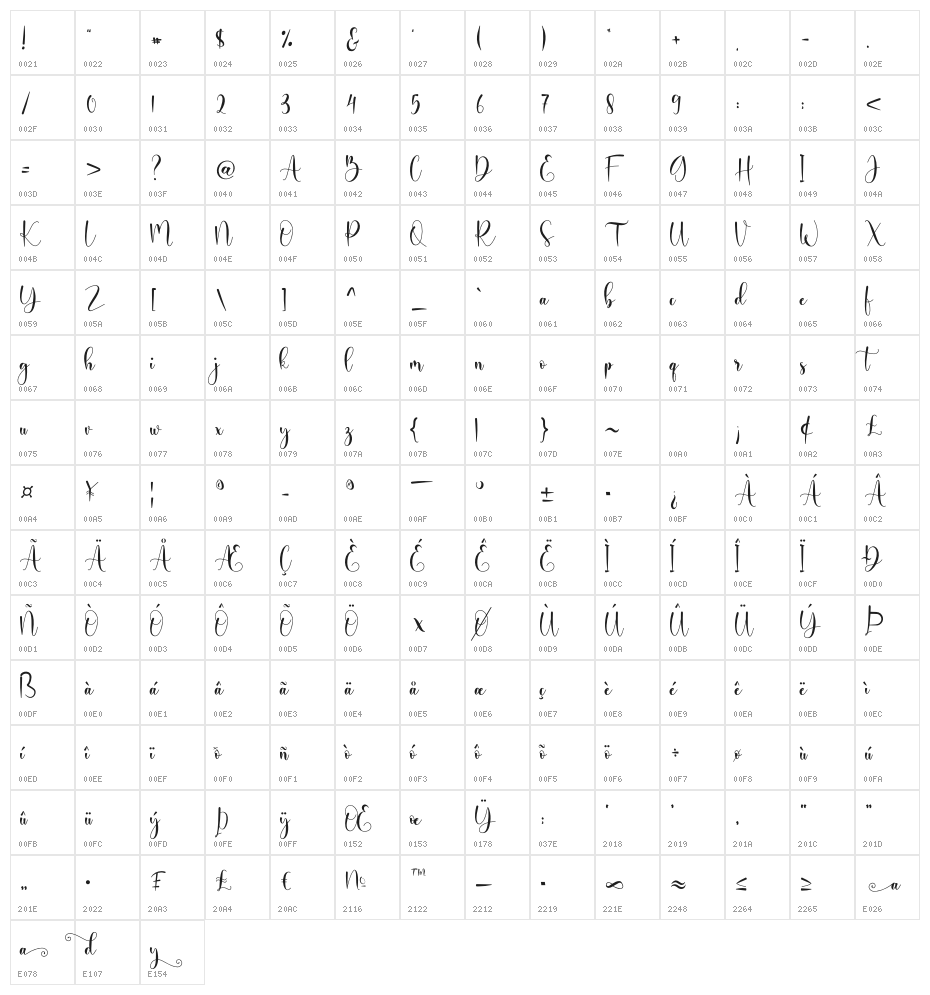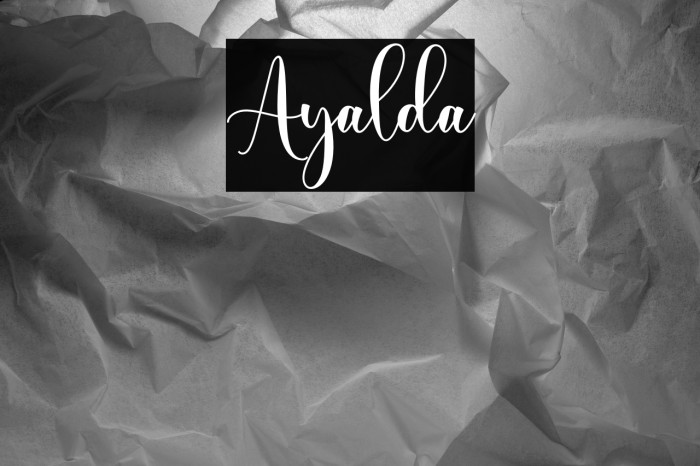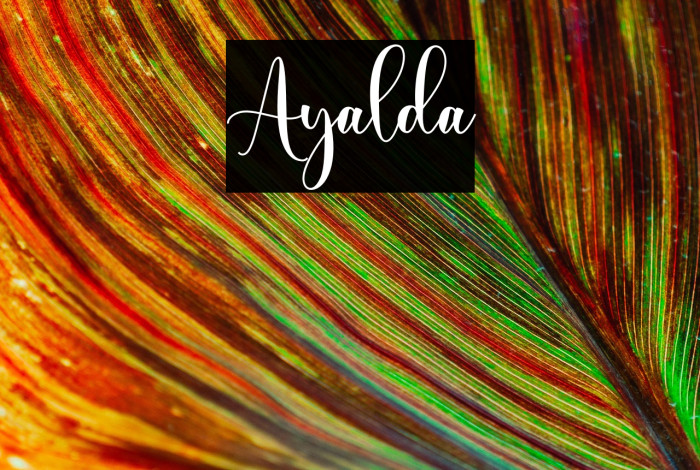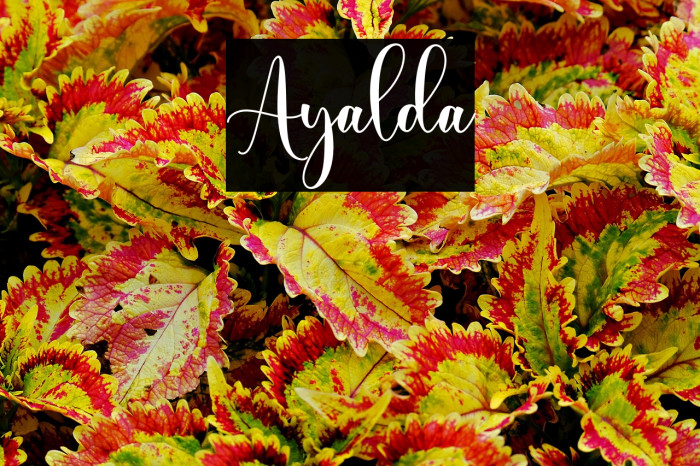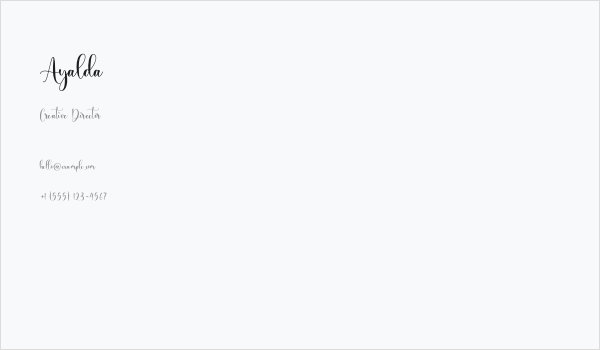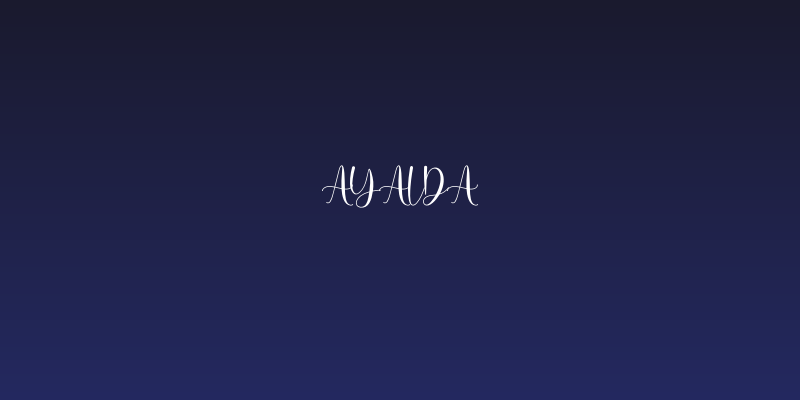
Ayalda Font
Ayalda Description
This font features an elegant and flowing script style, characterized by its graceful curves and loops. The uppercase letters are tall and slender, with a distinct calligraphic flair that adds a touch of sophistication. The lowercase letters maintain a consistent style, with smooth transitions and a harmonious balance between thick and thin strokes. The numerals are designed to complement the overall aesthetic, with a similar emphasis on fluidity and elegance. Special characters are thoughtfully integrated, ensuring versatility in various design contexts. This font exudes a sense of refinement and artistic expression, making it suitable for projects that require a personal and creative touch.